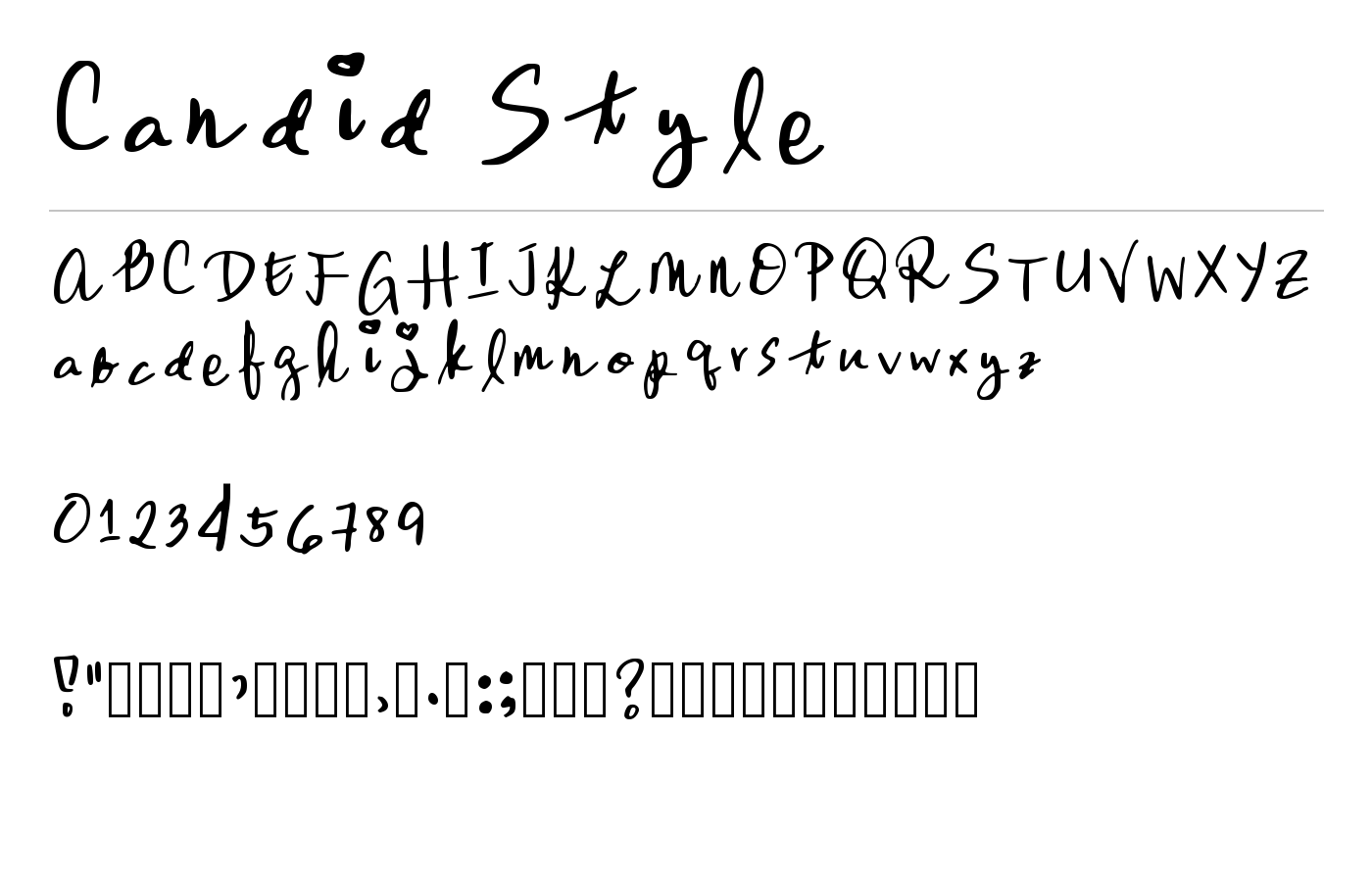
Candid Style is a playful, handwritten script font with a casual and personal feel. Its irregular strokes and quirky letter shapes give it a lively and approachable character, perfect for creative projects, informal branding, and invitations that seek a warm, friendly touch. This font works well in designs where a spontaneous, genuine handwritten style is desired to convey authenticity and charm.
Candid Style Font